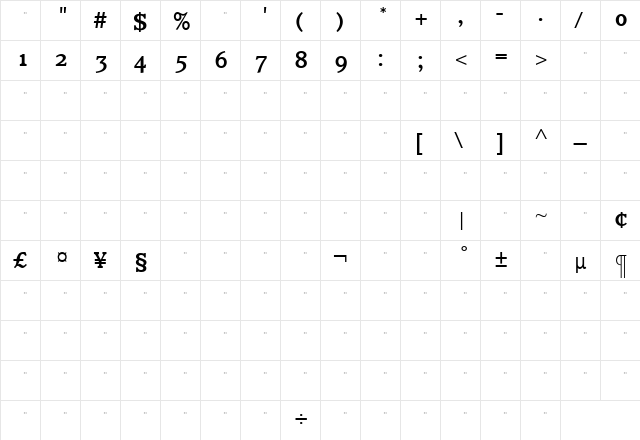
ClaremontMedOSTab Roman Font Preview
ClaremontMedOSTab Roman
ClaremontMedOSTab Roman Font Details
Design Context for ClaremontMedOSTab Typeface
ClaremontMedOSTab takes a measured approach to typography — its balanced proportions and neutral character make it a reliable workhorse for both digital and print work.